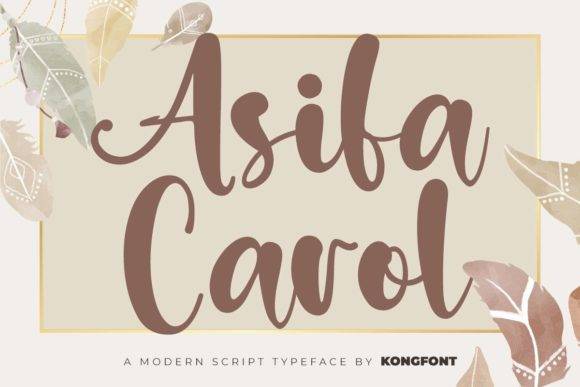
Asifa Carol Font for Crafting, Logos and Print Projects
This font file features a beautifully balanced handcrafted typeface ideal for crafting, logo development, and printable materials. Asifa Carol delivers soft elegance and subtle flair with its smooth lines and consistent readability, making it a dependable asset for DIY projects and commercial design work alike. As a font entity, it integrates easily into both print and cut-based applications. Additionally, its versatility makes it suitable for a wide range of branding initiatives, ensuring a seamless blend of aesthetics and functionality. The aufal font for creative branding is particularly effective in establishing a unique identity, capturing attention, and leaving a lasting impression on audiences. Whether used for digital or physical platforms, this typeface elevates any project, making it a standout choice for designers seeking to enhance their creative vision.
Whether you're creating greeting cards, boutique branding, or product packaging, Asifa Carol offers a warm, approachable tone that enhances visual appeal and message clarity.
- Handcrafted charm with clean curves
- Highly versatile for both digital and print use
| Design Style | Handcrafted sans-serif with clean lines | Playful handwritten | Stylized brush script |